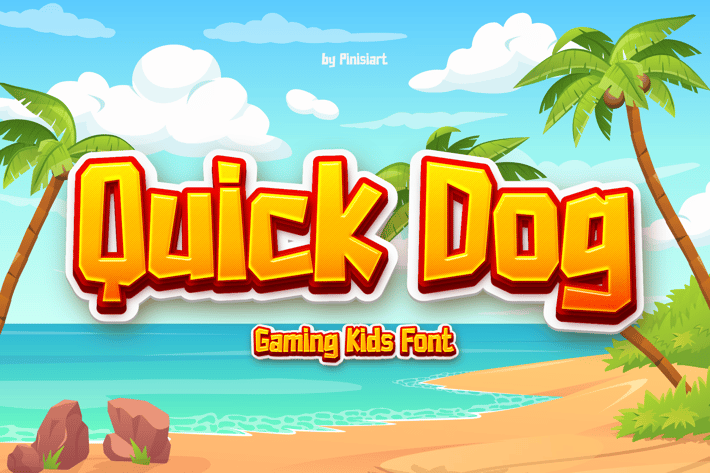
Quick Dog - Gaming Kids Font
Summer breeze and the beach. This font will make your event poster pop up and grabbing people attentions in no time.
Suit perfectly for summer books market, online games, teens event posters, school supplies font, posters, movie titles, youtube covers, youtube thumbnails, social media page covers, and so on...